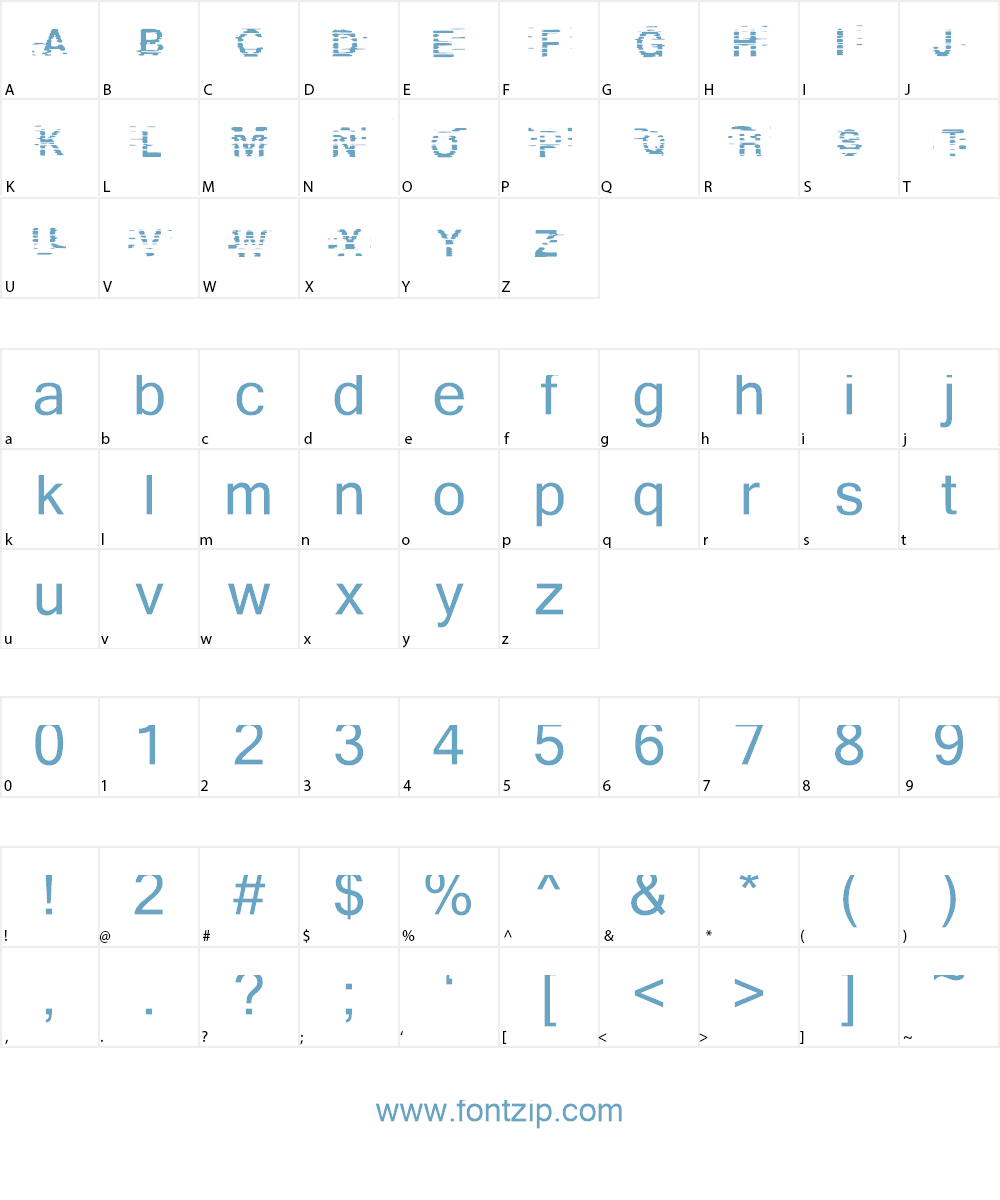
Love glitch art? Verion 2 is here, this is only a demo. More to help put an extra element to your designs and creations. Great for sci-fi cyber punks!